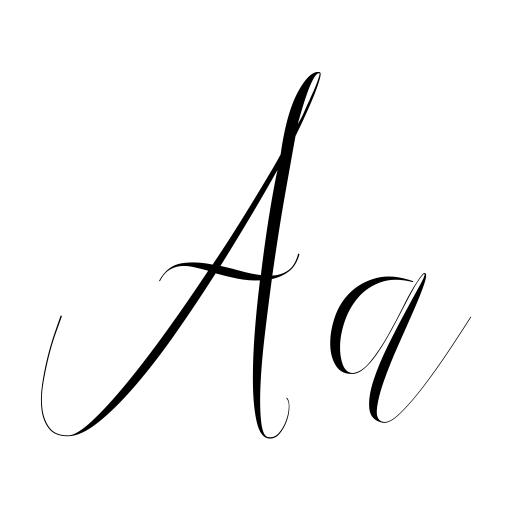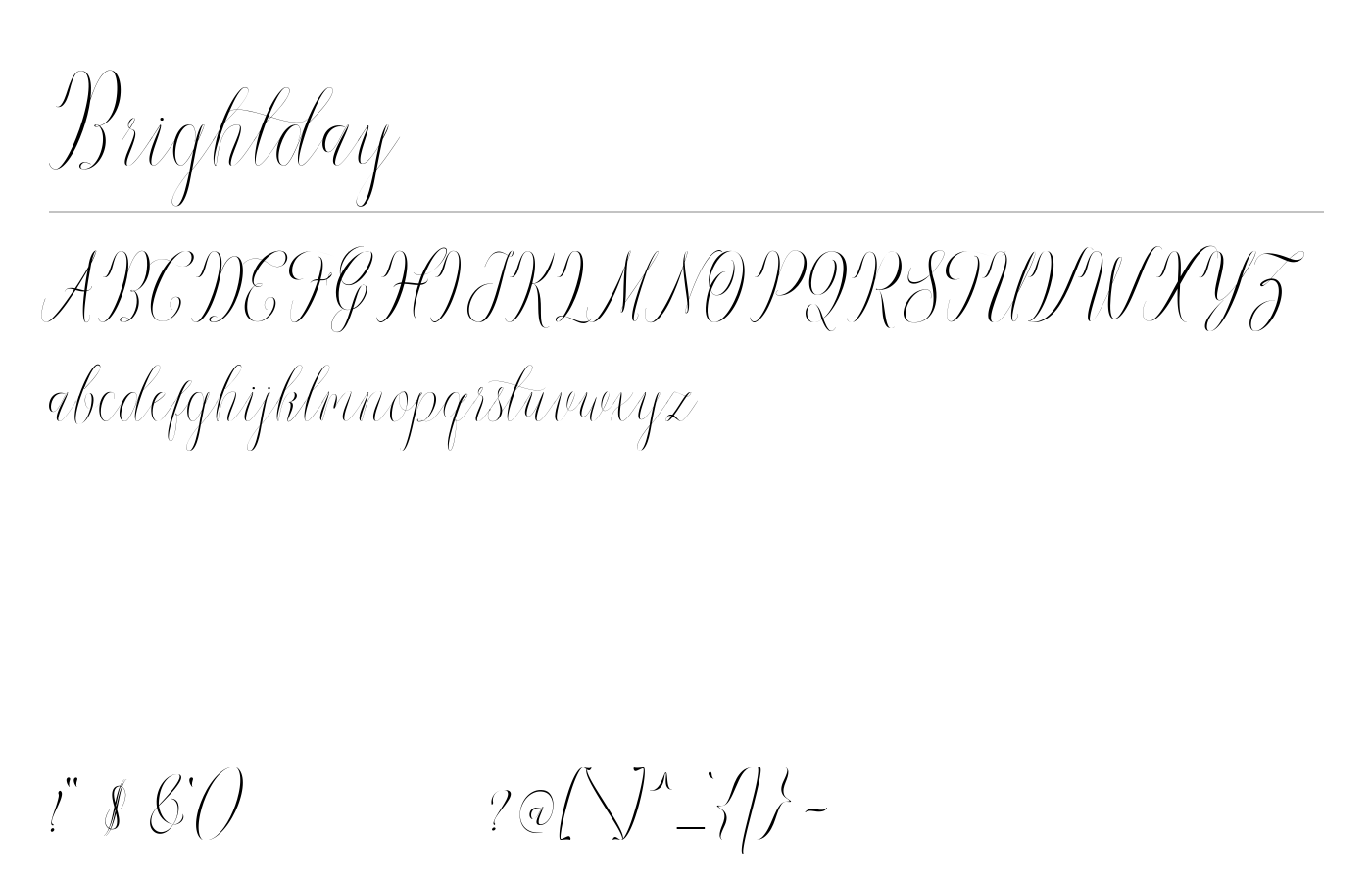
Brightday is an elegant, delicate script font characterized by its thin, flowing strokes and graceful letterforms that evoke a sense of sophistication and charm. Its tall, slender characters and fanciful curves make it perfect for upscale branding, wedding invitations, and luxury editorial projects where a refined, romantic atmosphere is desired. This font excels in large display settings, adding a touch of elegance and artistry to any design.
Brightday Font
About Brightday Font